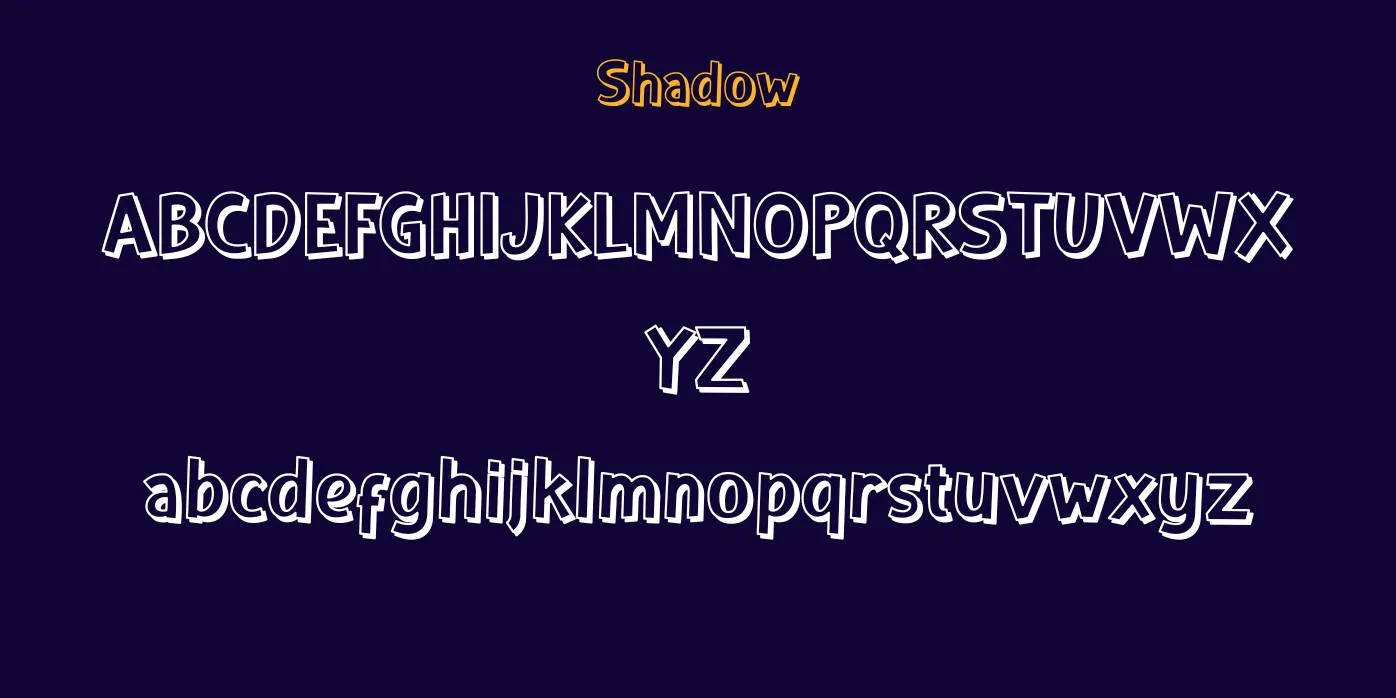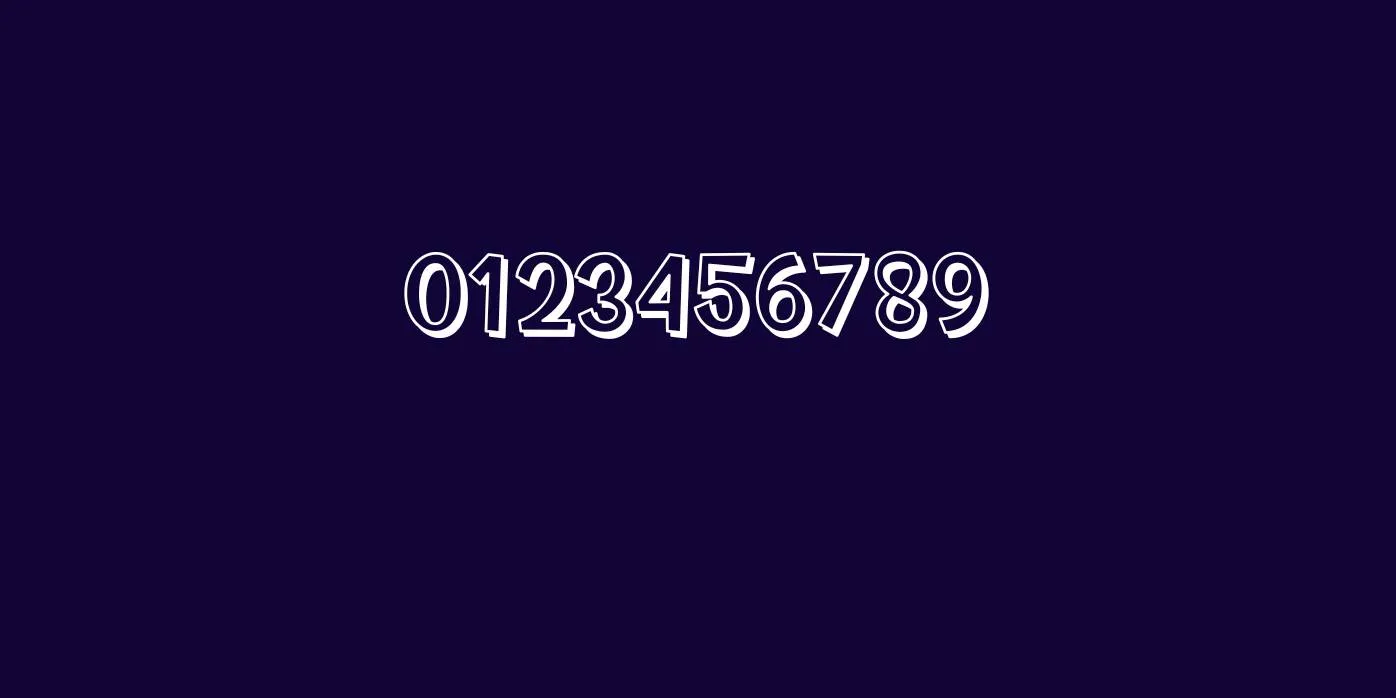
Shadow Font belongs to the Fancy font category that was created by Toko Laris Djaja. It has its own unique and shadowed texture that can make your project more creative and stylish.
This typeface has only Regular weight and it has TrueType and OpenType features. It also includes stylish characters in large and small letters, digits, punctuations, and a few special characters.
What Was The Shadow Font Used For?
This font is a perfect option for the making of stylish t-shirts, records, printing, billboards, branding, flyers, road signs, leaflets, maps, layouts, reports, signboards, brochures, business outlets, wedding cards, official cards, blogs, envelopes, and other projects. It can make a perfect pair with poggers font.
This font is a great selection for the making of attractive book covers, websites, resumes, apps, CVs, hats, assignments, mug designs, documents, video graphics, houseware products, game graphics, product packaging, editing, thumbnails, descriptions, reels, and various other design projects.
You can use this font style in the making of logos, backgrounds, titles, posters, captions, articles, headlines, content, letterheads, newspapers, headers, journals, footers, marketing, themes, and many other design purposes.
| Designer | Toko Laris Djaja |
| Style | Fancy |
What type of font is Shadow Font?
This font belongs to the fancy font category that was created by Toko Laris Djaja.
Is Shadow Font a good font?
It has its own unique and shadowed texture that can make your project more creative and stylish. This font is the best idea for any type of creative and artistic display.